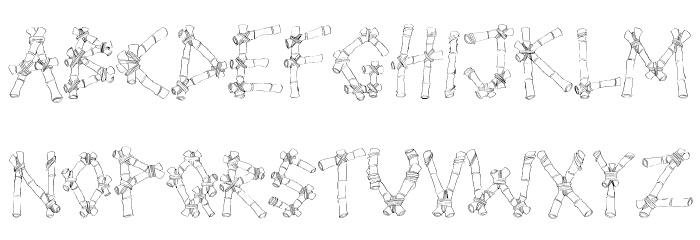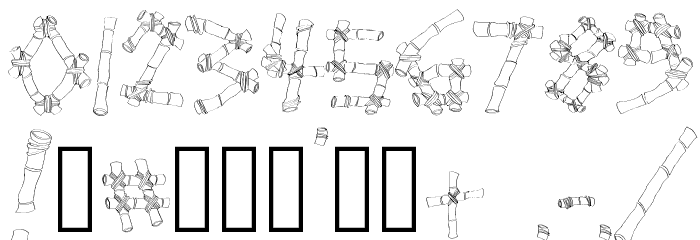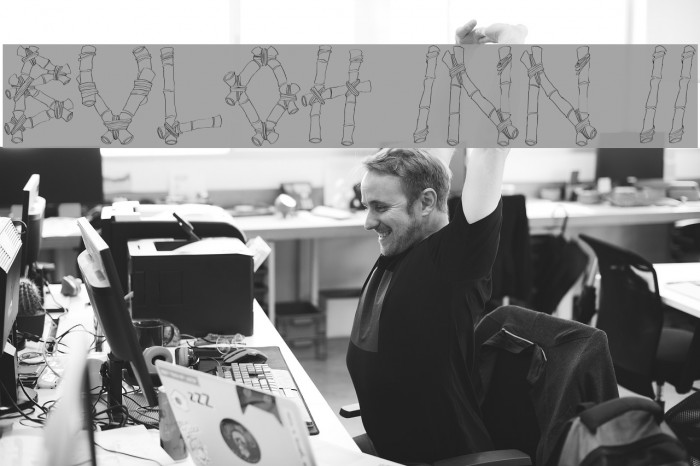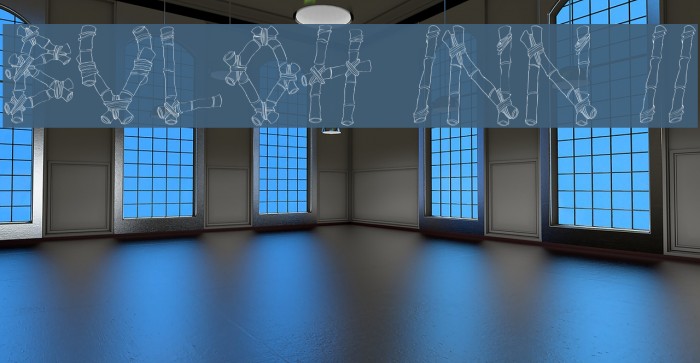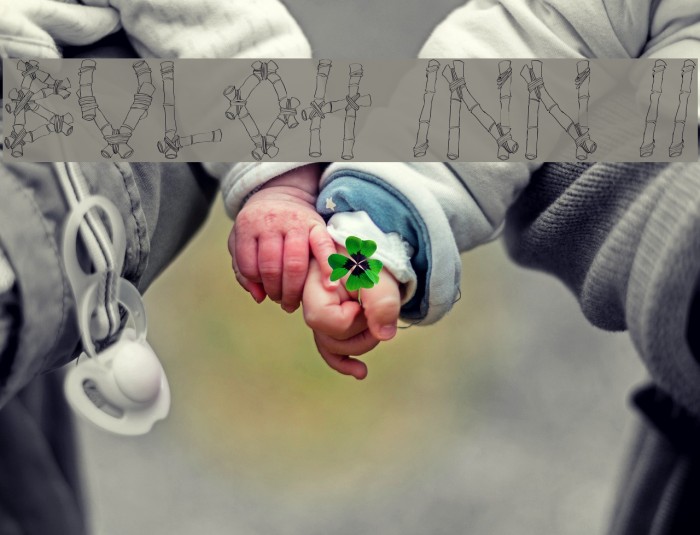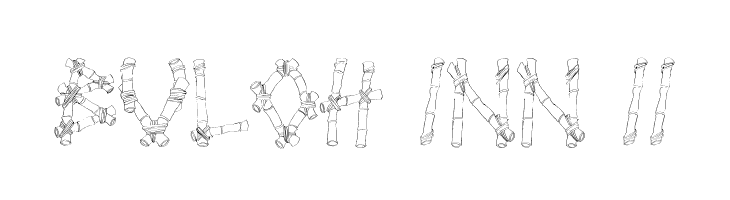
BULOH INN II Font
This font features a unique and playful design, with each character constructed from what appears to be cylindrical segments connected at various angles. The letters and numbers have a three-dimensional appearance, giving them a dynamic and intriguing look. The style is reminiscent of a mechanical or industrial theme, with a touch of whimsy due to the irregular shapes and connections. The font maintains a consistent structure across uppercase, lowercase, and numerical characters, ensuring readability while still embracing its unconventional aesthetic. Special characters are also included, following the same design principles, which adds to the font's versatility.
A playful, three-dimensional font with cylindrical, mechanical elements.
- Proposed Projects: Ideal for creative projects such as posters, logos, or video game design where a unique and eye-catching typeface is desired.
- Use Case: Logos, Posters, Creative projects